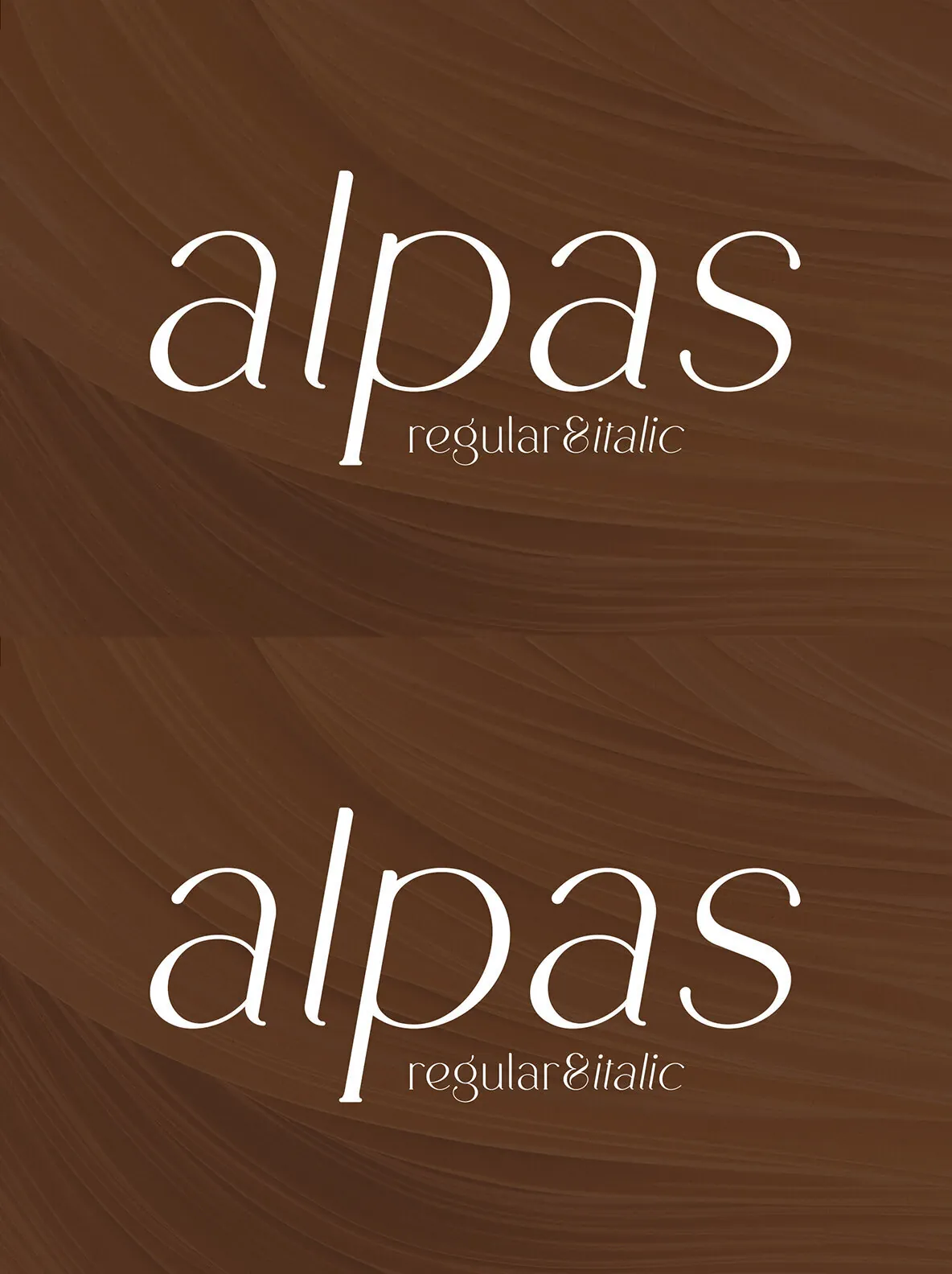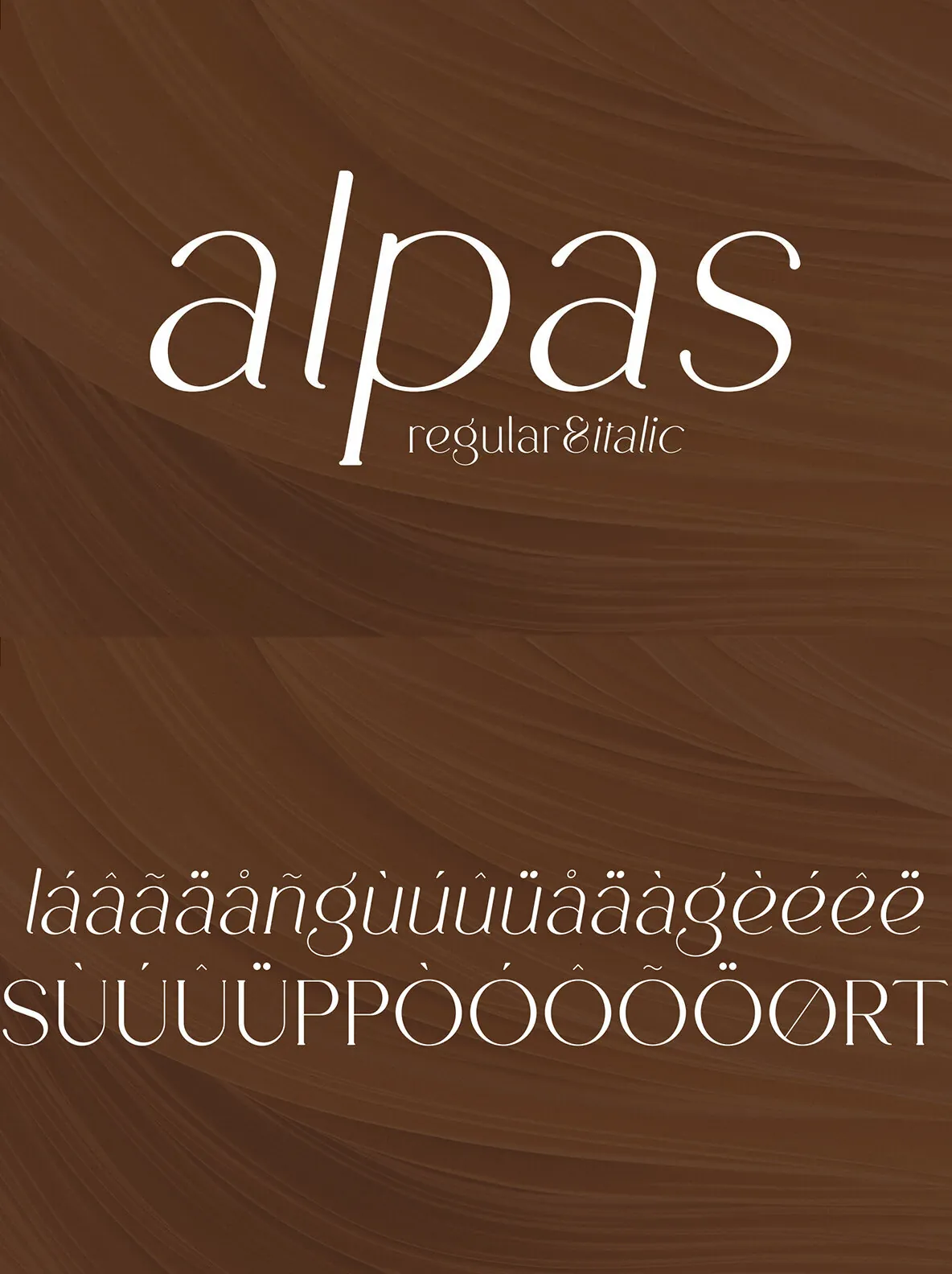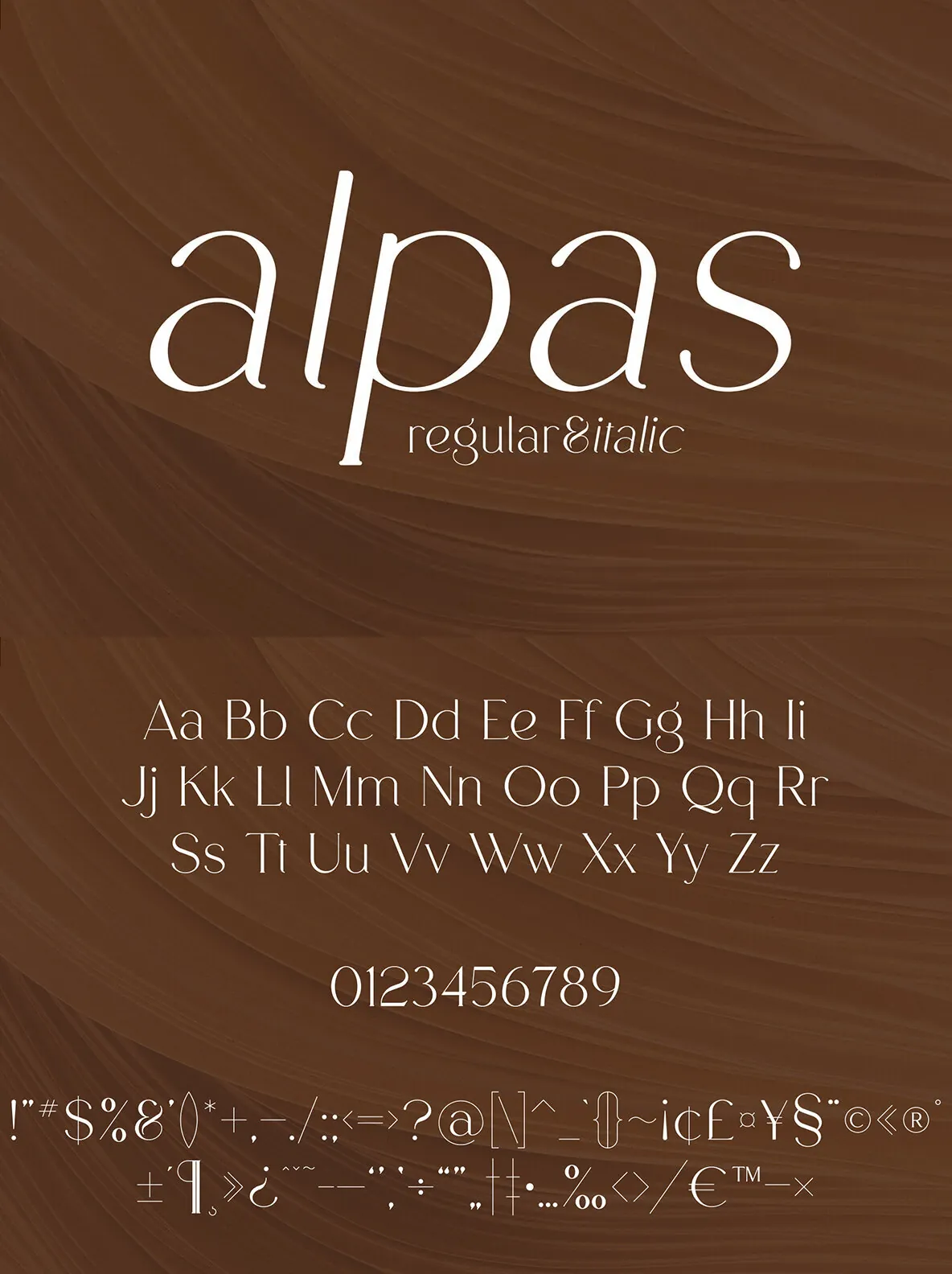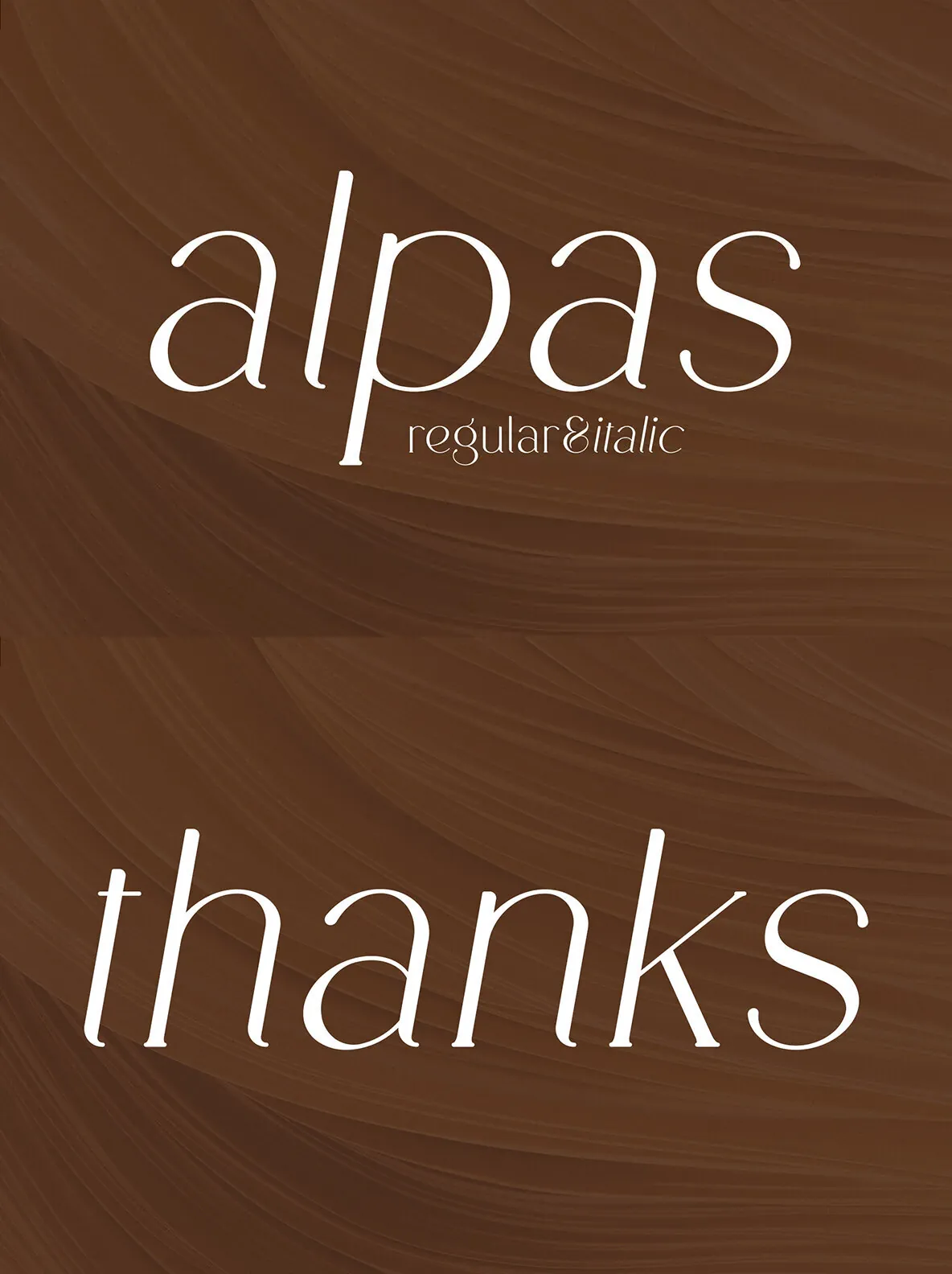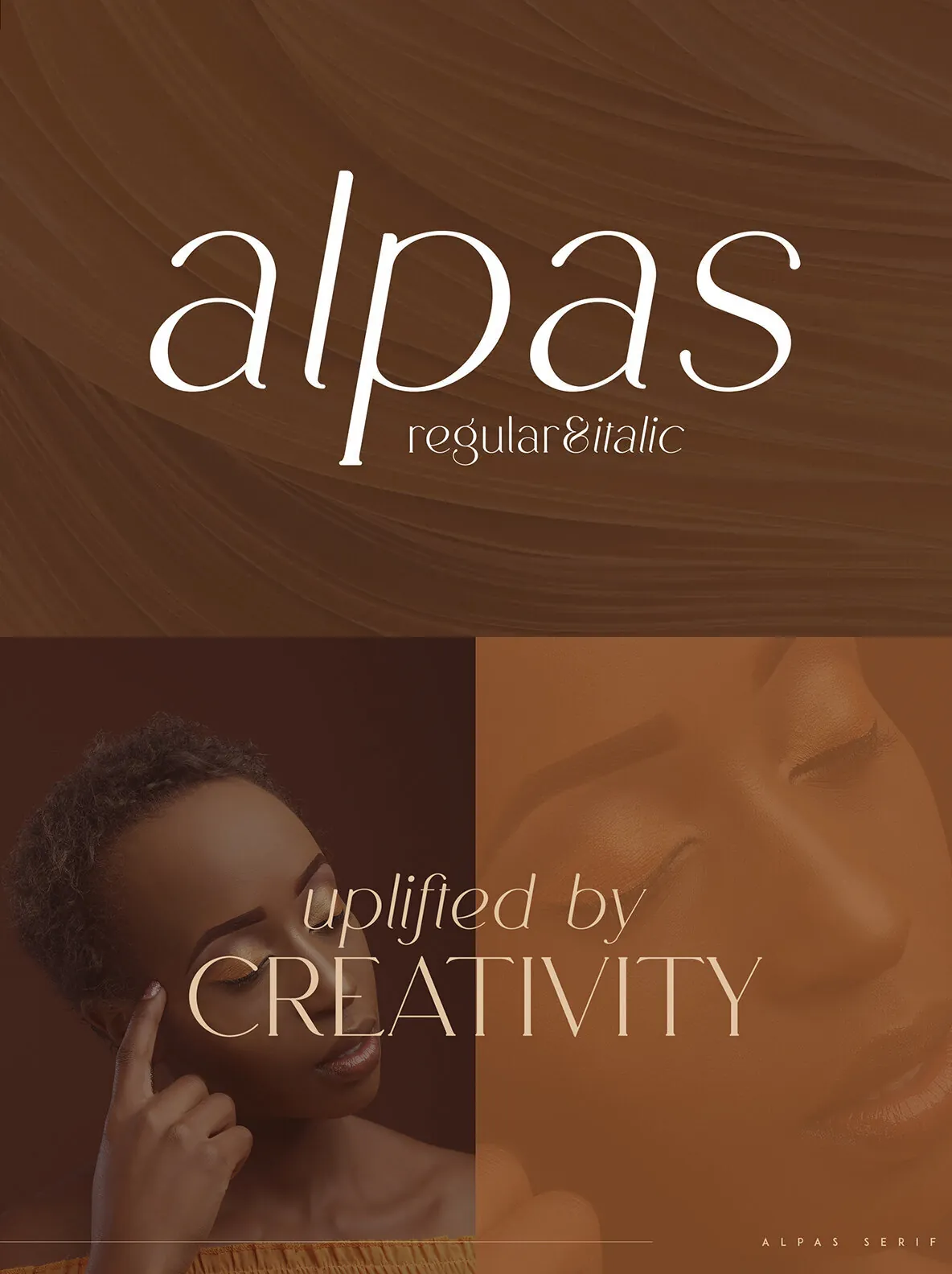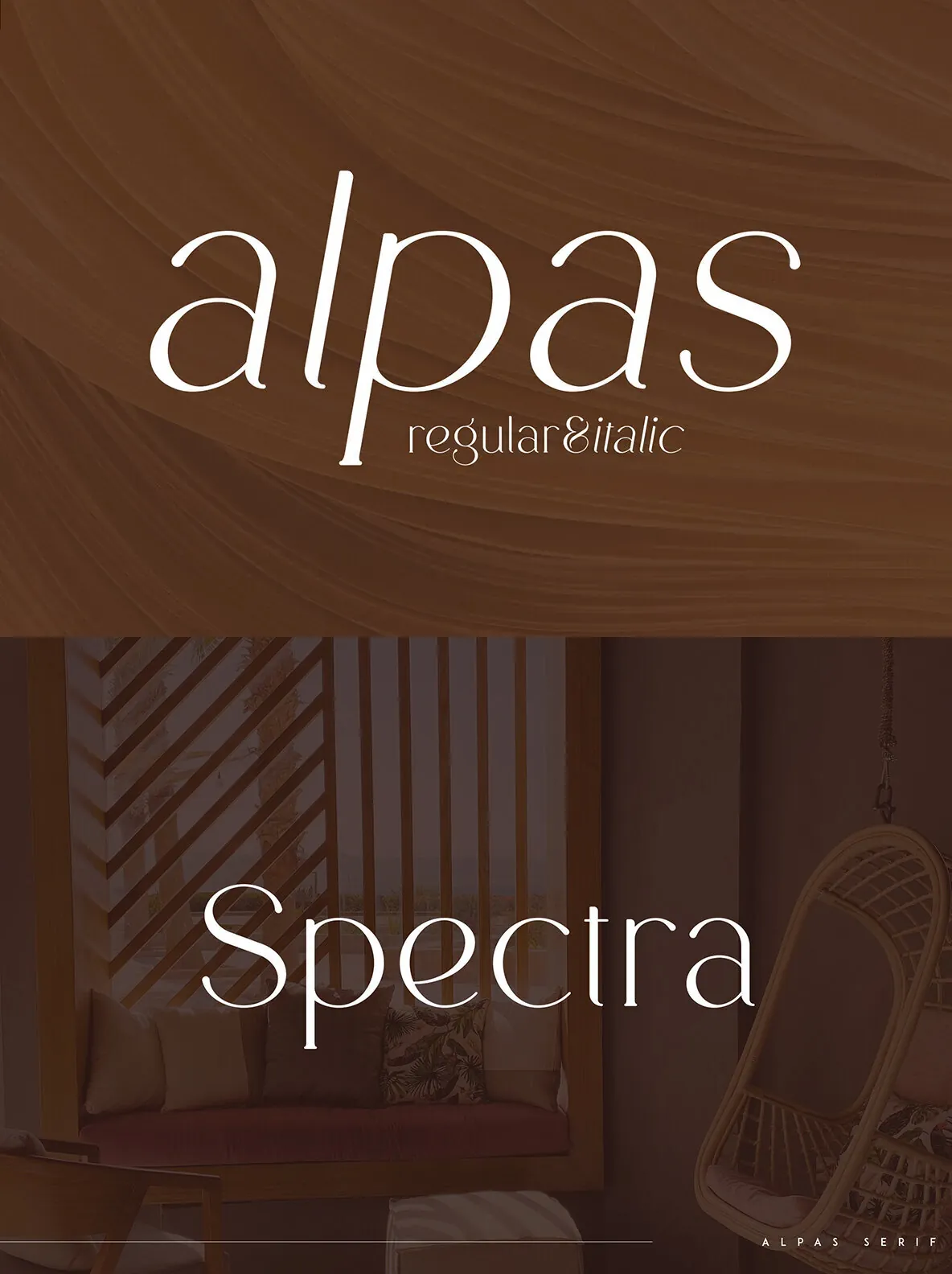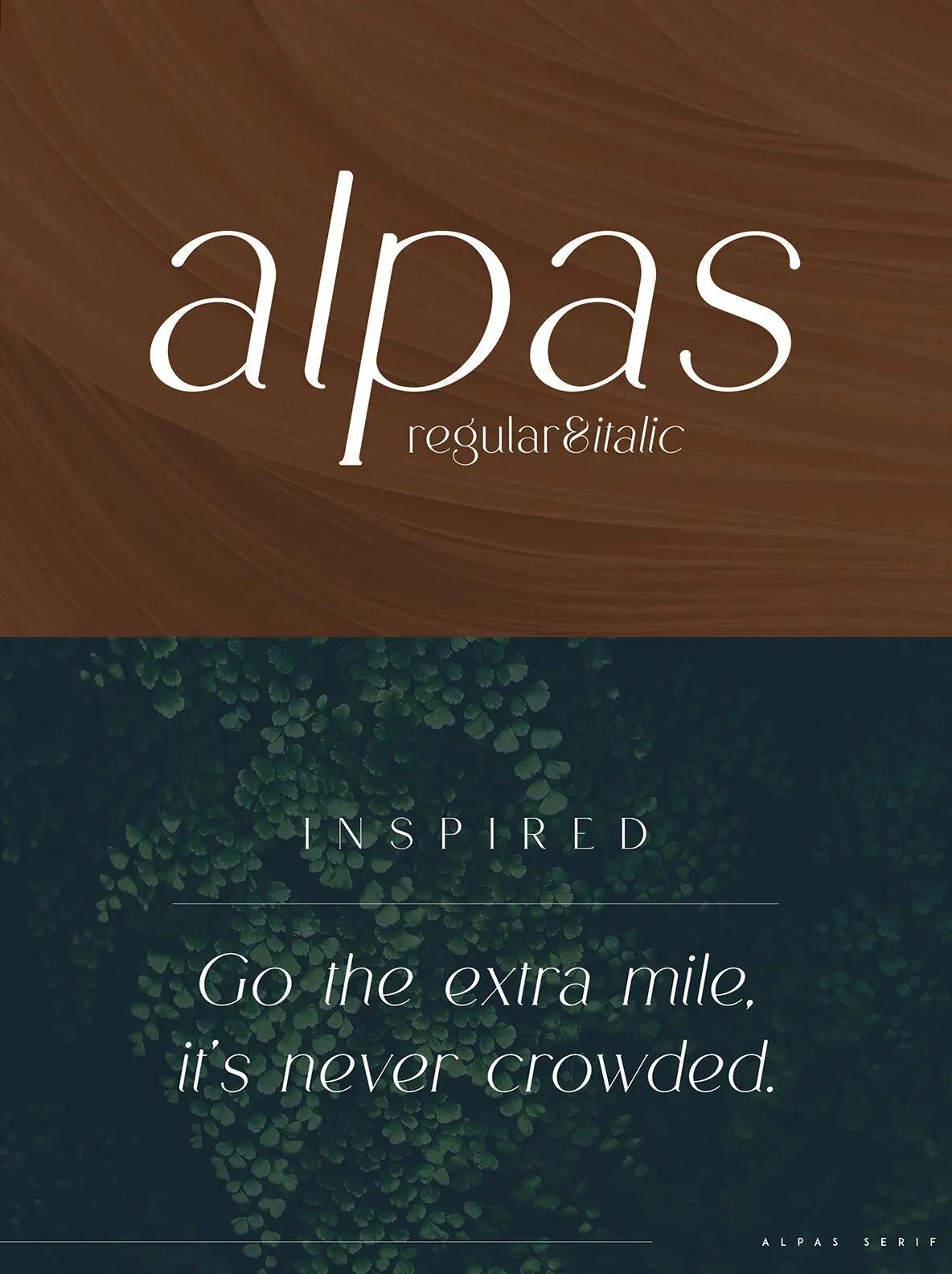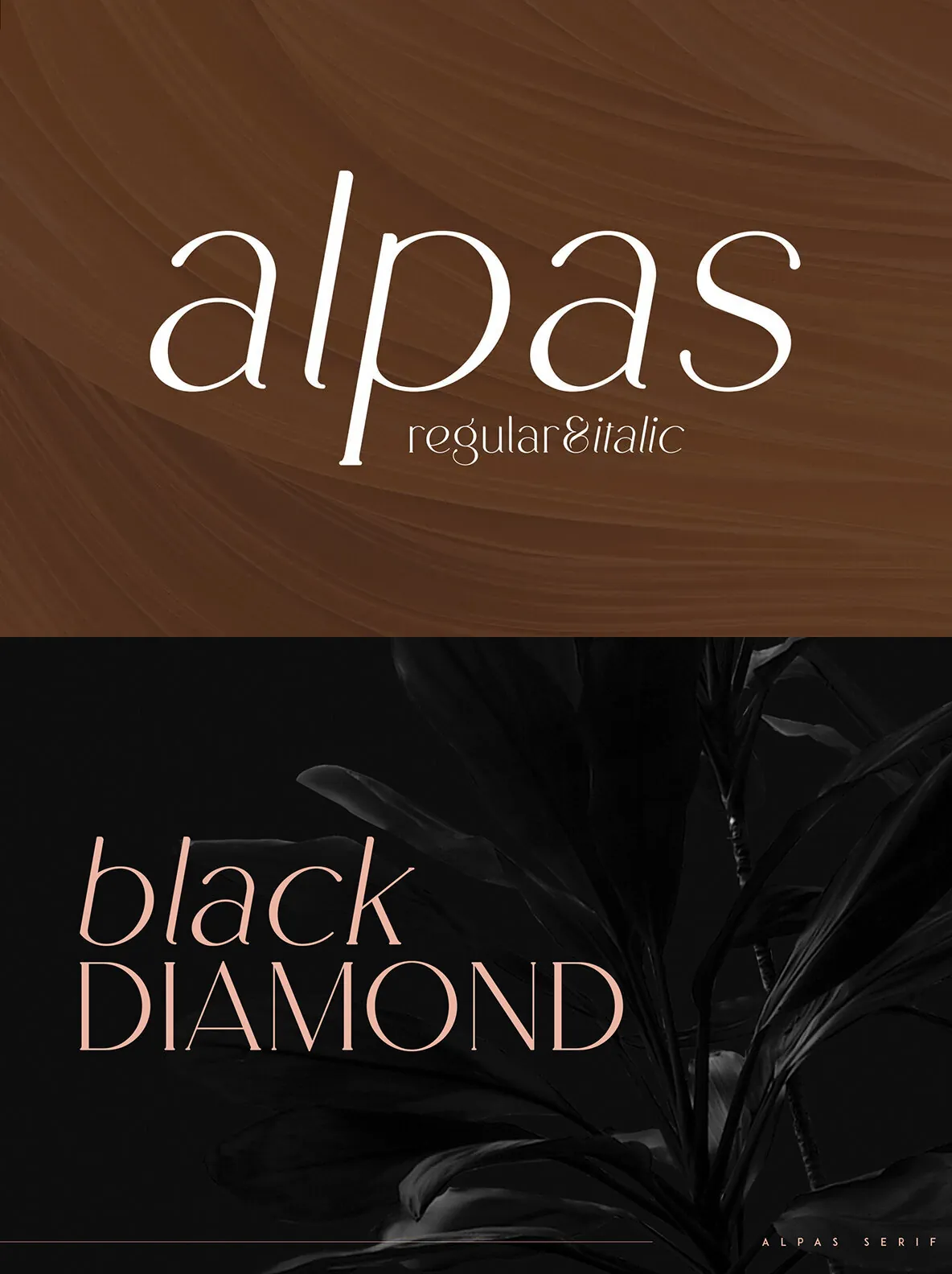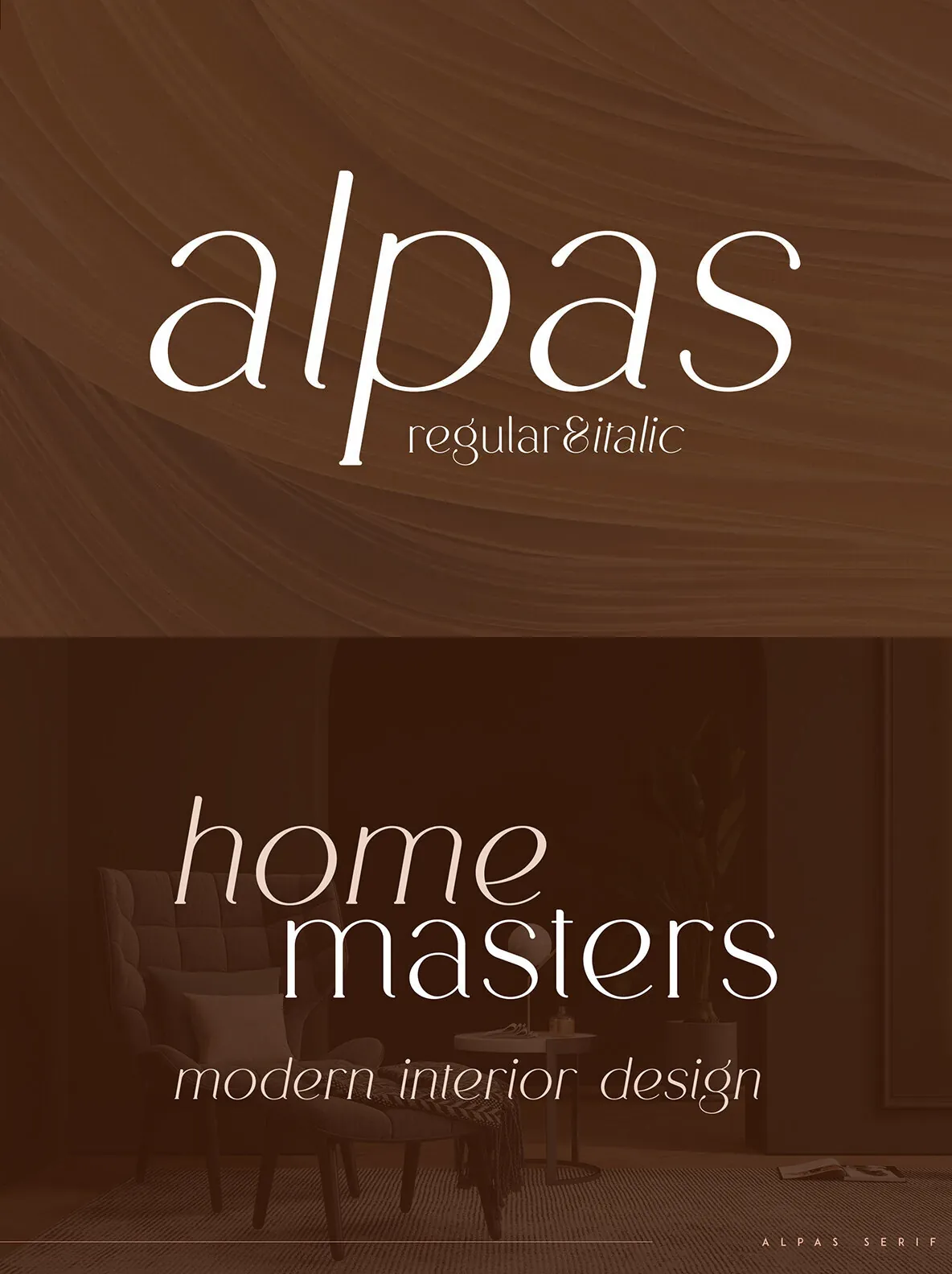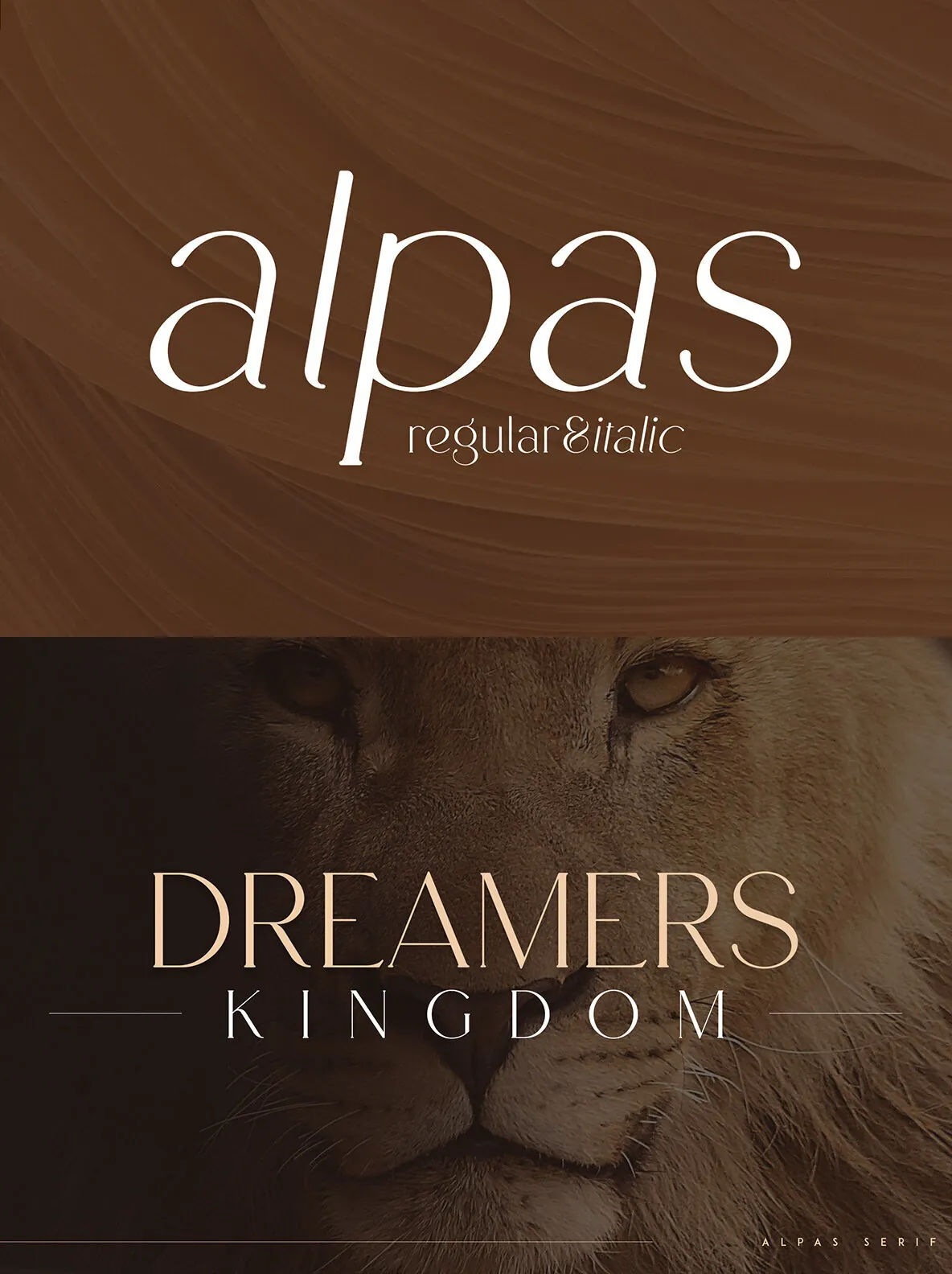
Alpas Font
Alpas: Serif Details for Editorial Work
A serif typeface published by VP Creative Shop, Alpas suits designers who need a classic voice for contemporary layouts. Its serif structure reads with confidence and clarity, making it a practical choice for editorial pages, brand systems, and polished display settings.
Use Alpas when you want typography that feels considered and professional. It fits well in headlines, subheads, and supporting text where a serif presence can carry tone without distraction. Designed for digital design workflows, Alpas integrates easily into everyday projects while keeping a refined typographic character.